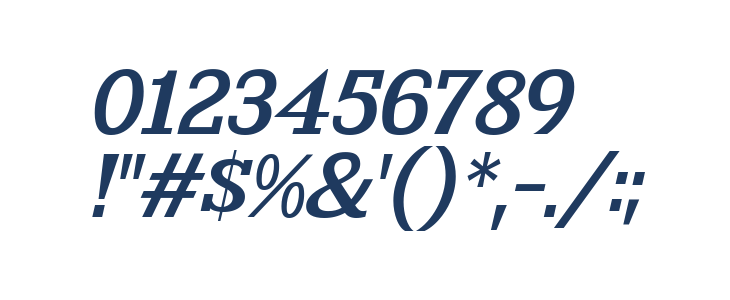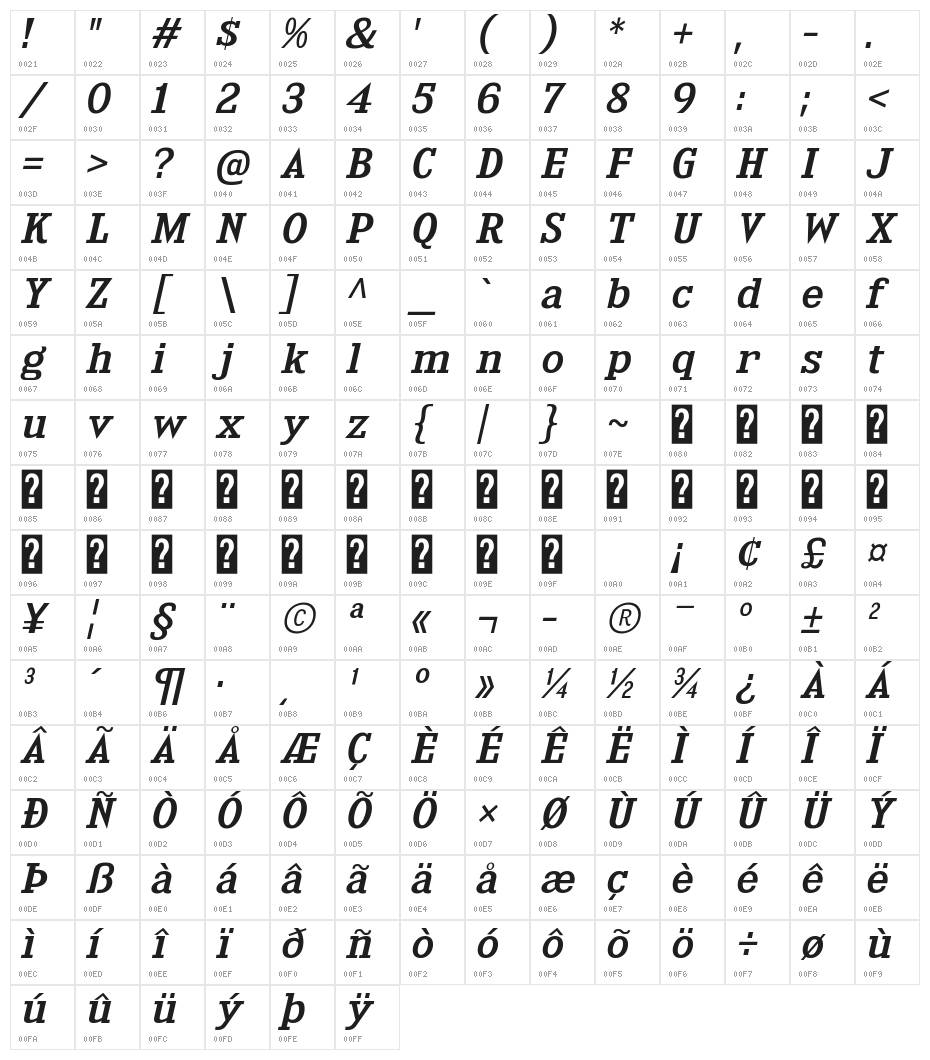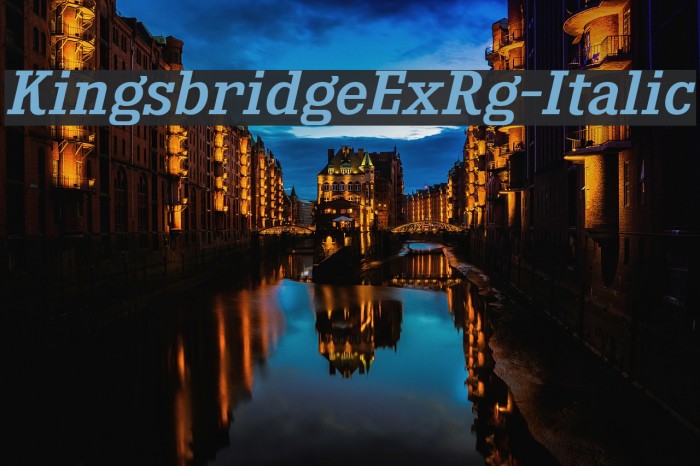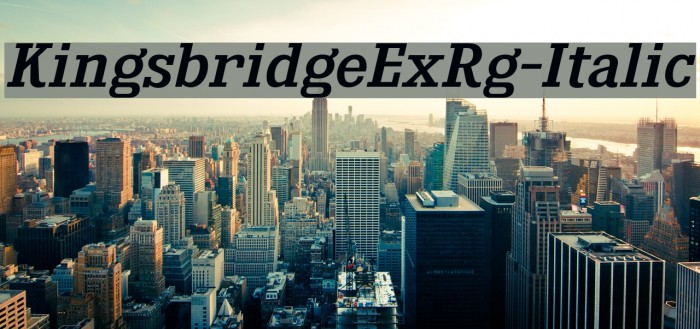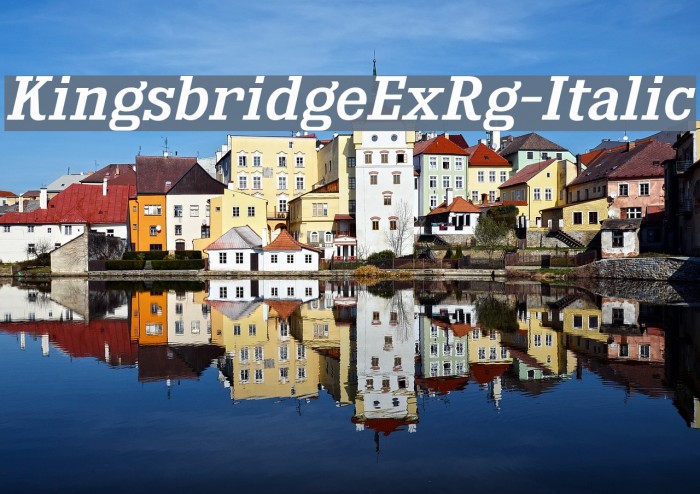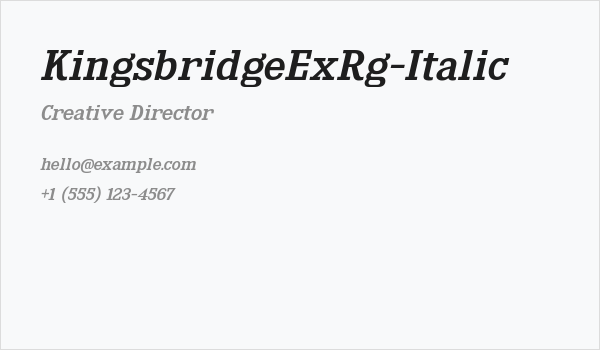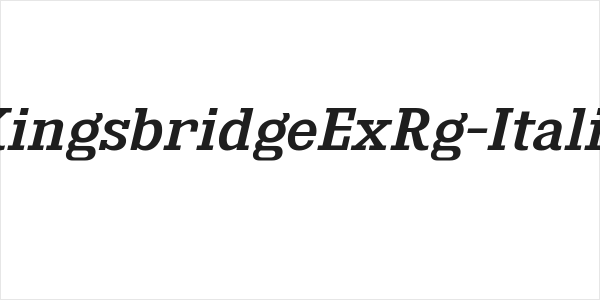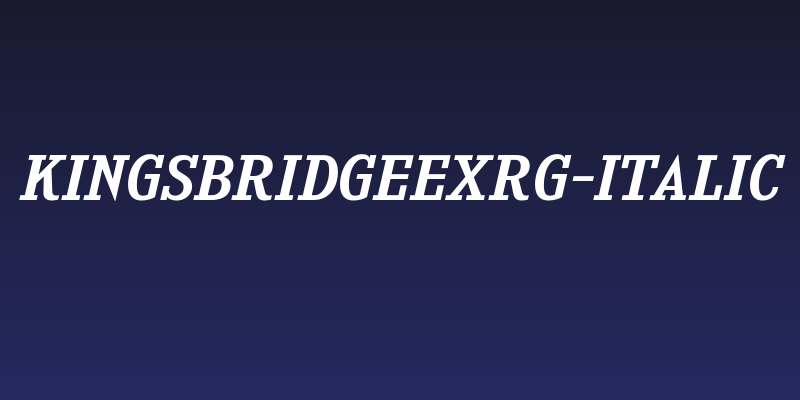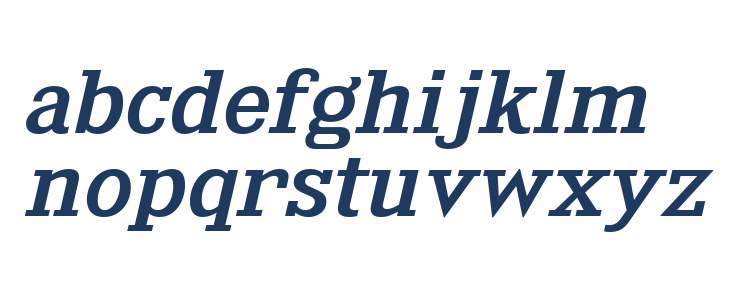
KingsbridgeExRg-Italic Font
KingsbridgeExRg-Italic Description
This font exhibits a classic serif style with a modern twist, characterized by its elegant and slightly slanted italic form. The letters are well-proportioned, with a noticeable contrast between thick and thin strokes, giving it a sophisticated appearance. The serifs are pronounced yet refined, adding a touch of tradition to the overall design. The font maintains a consistent rhythm, making it visually appealing and easy to read. Its italic nature adds a dynamic and flowing quality, suitable for emphasizing text without losing clarity. The numerals and special characters are designed to match the letterforms, ensuring a cohesive look across different types of content.